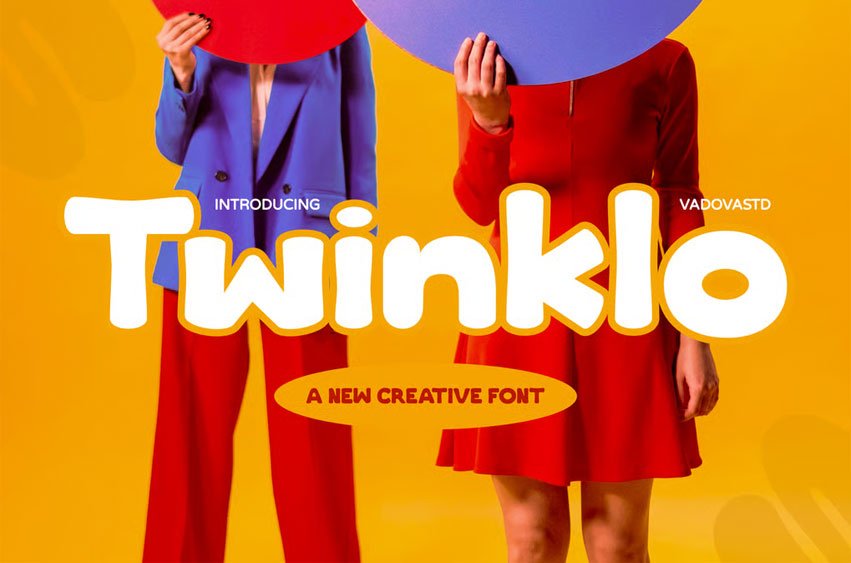
Twinklo Font is a brightly styled display font that blends bold, rounded letterforms with a playful and experimental design, ideal for creative projects that demand attention.
Perfect for branding, music promotions, kids’ content, or energetic campaigns, it captures a lively, artistic vibe. With its standout appearance and aesthetic charm, this font is a versatile tool for logos, posters, packaging, and agency work that thrives on color, personality, and originality.